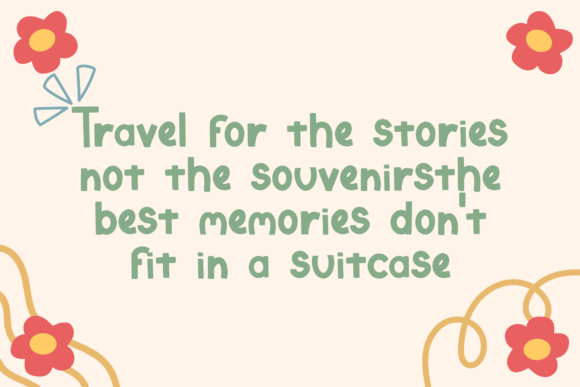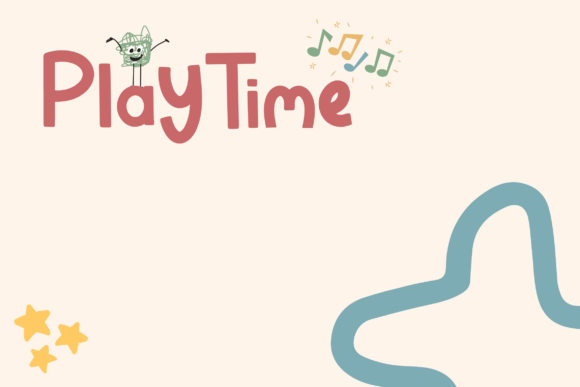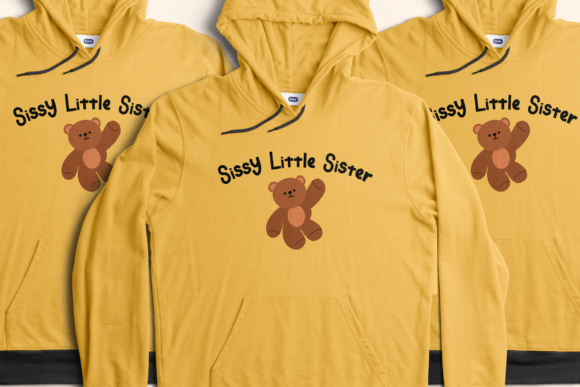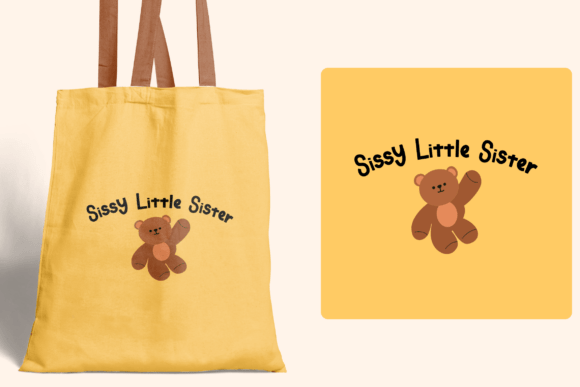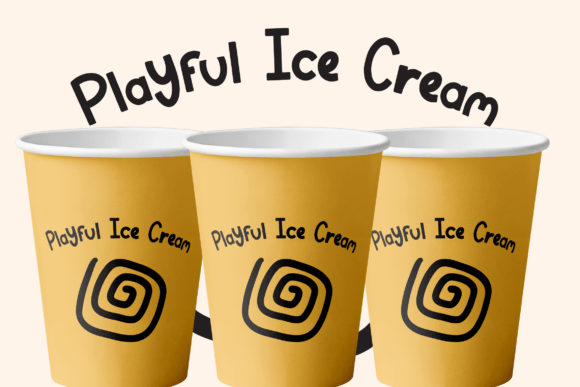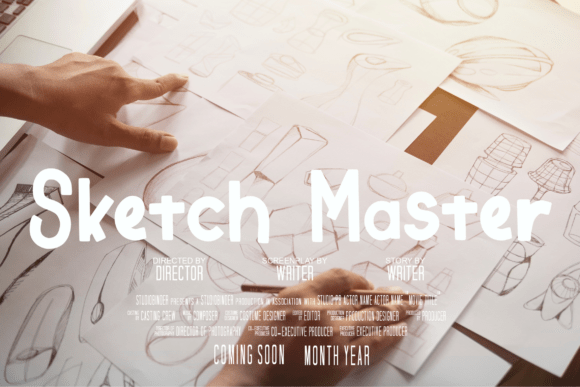
Introduction to Playbean Font Font
Fonts play a crucial role in design, and the Playbean Font font is a typeface that brings both character and versatility to any project. Whether you’re working on a branding project, a website, or a print design, the Playbean Font font offers a unique style that can elevate your work.
| π Font Name | Playbean Font |
| π€ Author | Sharon ( DmStudio ) |
Playbean is a cheerful and carefree handwritten font with rounded strokes and bouncy movement.
Its soft, playful shapes make it perfect for kidsβ designs, logos, product packaging, social media graphics, and anything that needs a burst of fun energy Whether youβre designing for print or digital, Playbean brings a sense of joy and friendliness to your project.
Key Features of Playbean Font Font
Why Choose Playbean Font Font?
The Playbean Font font is more than just a typeface β it’s a design tool that helps you communicate your message with style and clarity. Its unique character set and versatile design make it suitable for a wide range of applications, from elegant invitations to bold headlines.
With its carefully crafted letterforms and balanced proportions, the Playbean Font font ensures readability and visual appeal across all mediums.
What makes Playbean Font font special?
The Playbean Font font stands out with its unique design, exceptional readability, and versatility across various design applications.